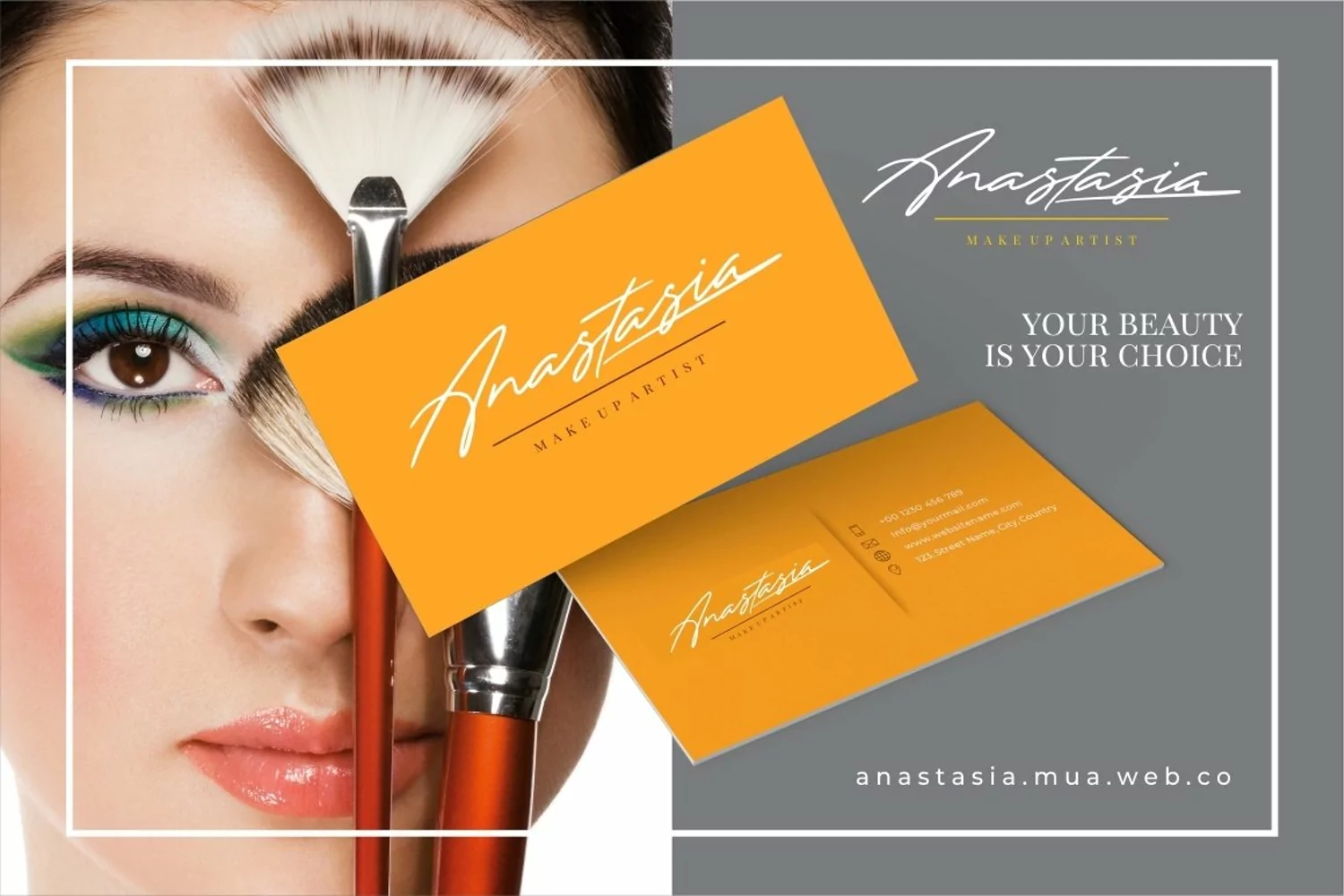
The Excited - Signature Font
Introducing a Stylistic Signature Typeface called " The Excited ",
The Excited is a handwritten signature with natural ,classy and stylish flow.
The Excited best uses for signature, heading, cover, branding, invitation, label, poster, logos, quotes, product packaging, header, merchandise, social media & greeting cards and many more.
Comes with feature :
- Alternate
- Number, Punctuation And Symbols